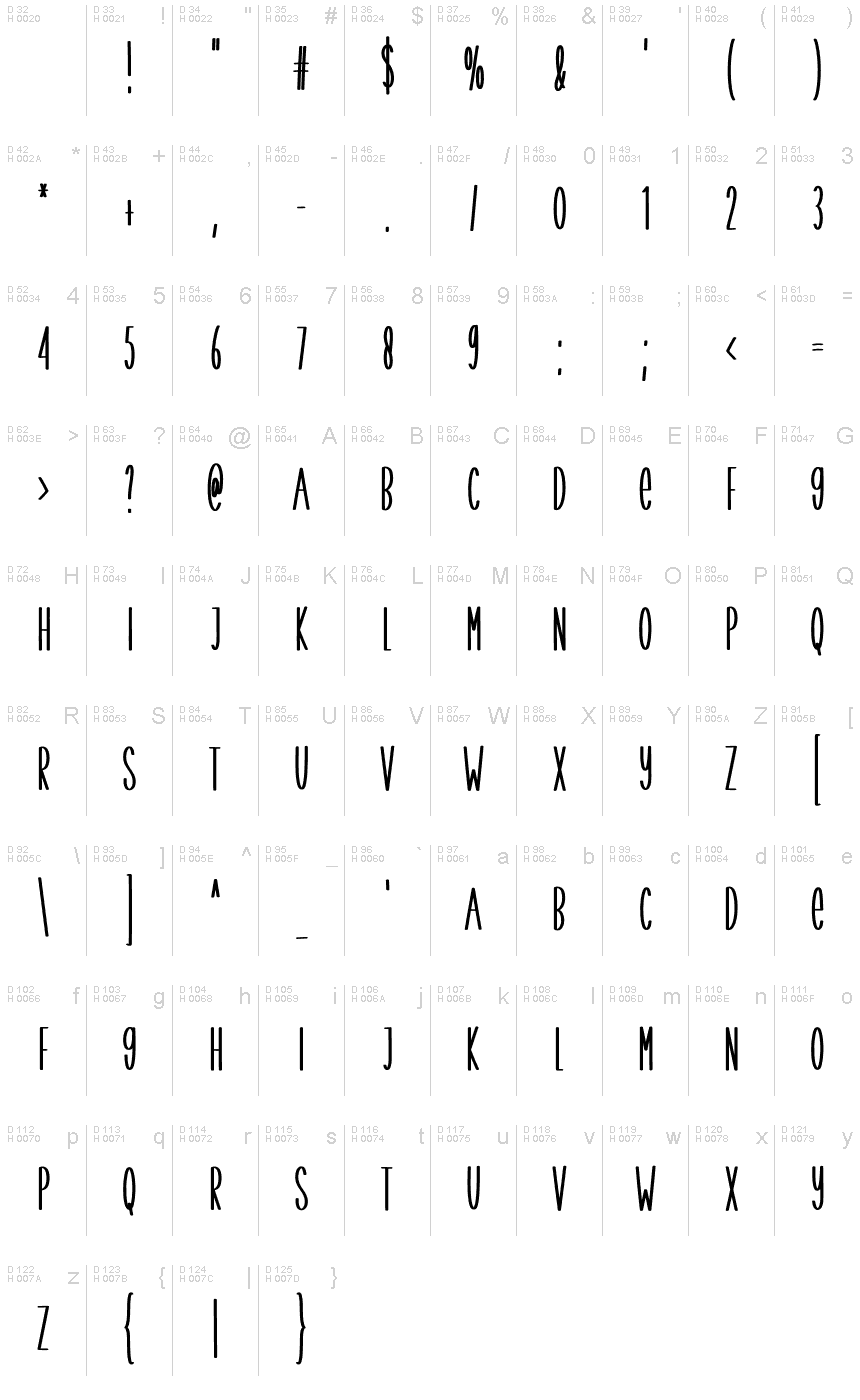
Minihome
Minihome, a captivating handwritten font by Scratchones, adds a touch of whimsy to any project. Its semi-light weight and extra-condensed width give it a unique charm that is perfect for creating eye-catching headlines and titles.
With its block letters and all caps style, Minihome is an ideal choice for designing playful logos, branding materials, and greeting cards. This versatile font will also bring a fresh, youthful feel to social media graphics, blog headers, and children's book illustrations.
Let Minihome elevate your designs with its delightful handwritten appeal.